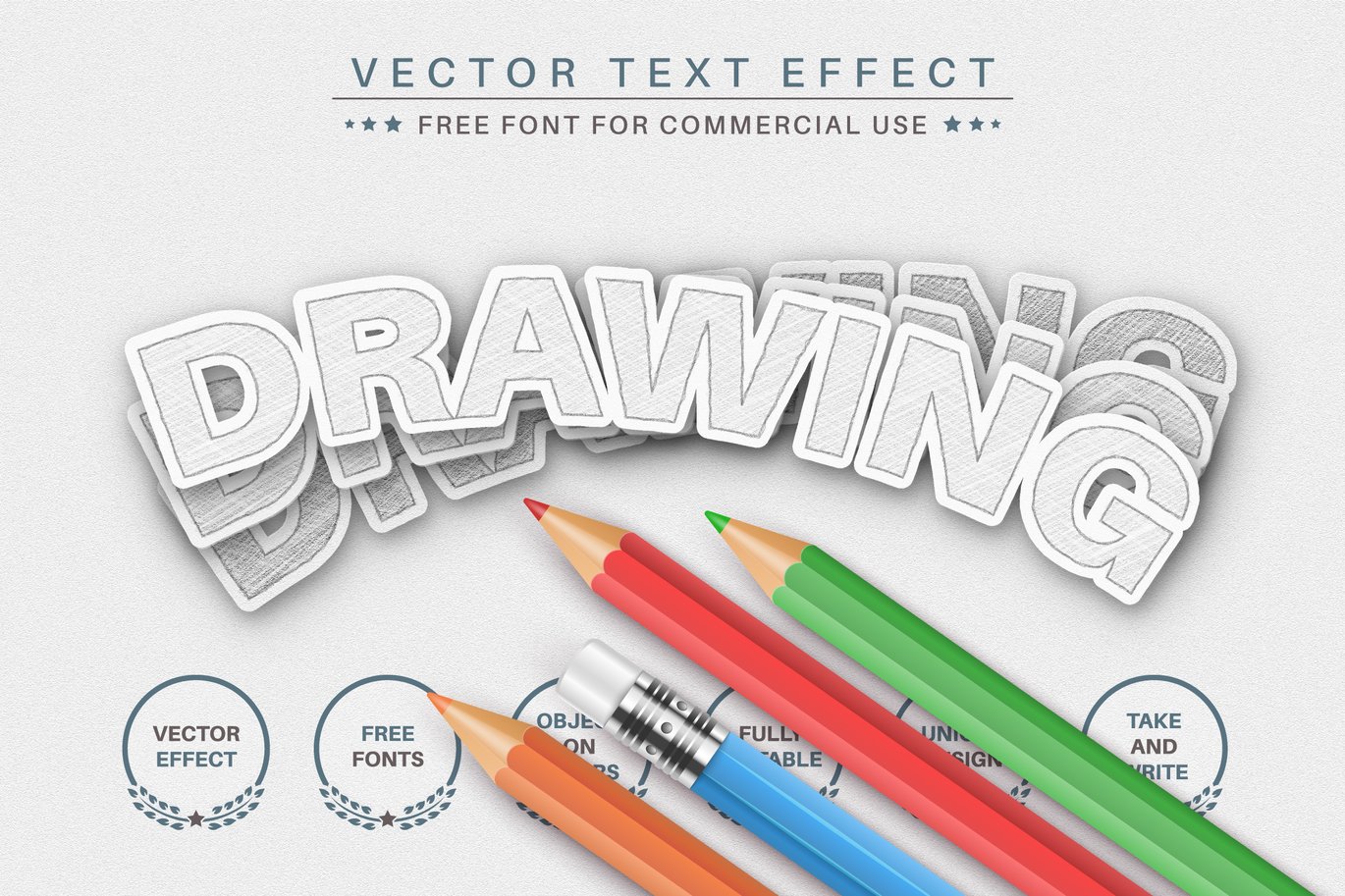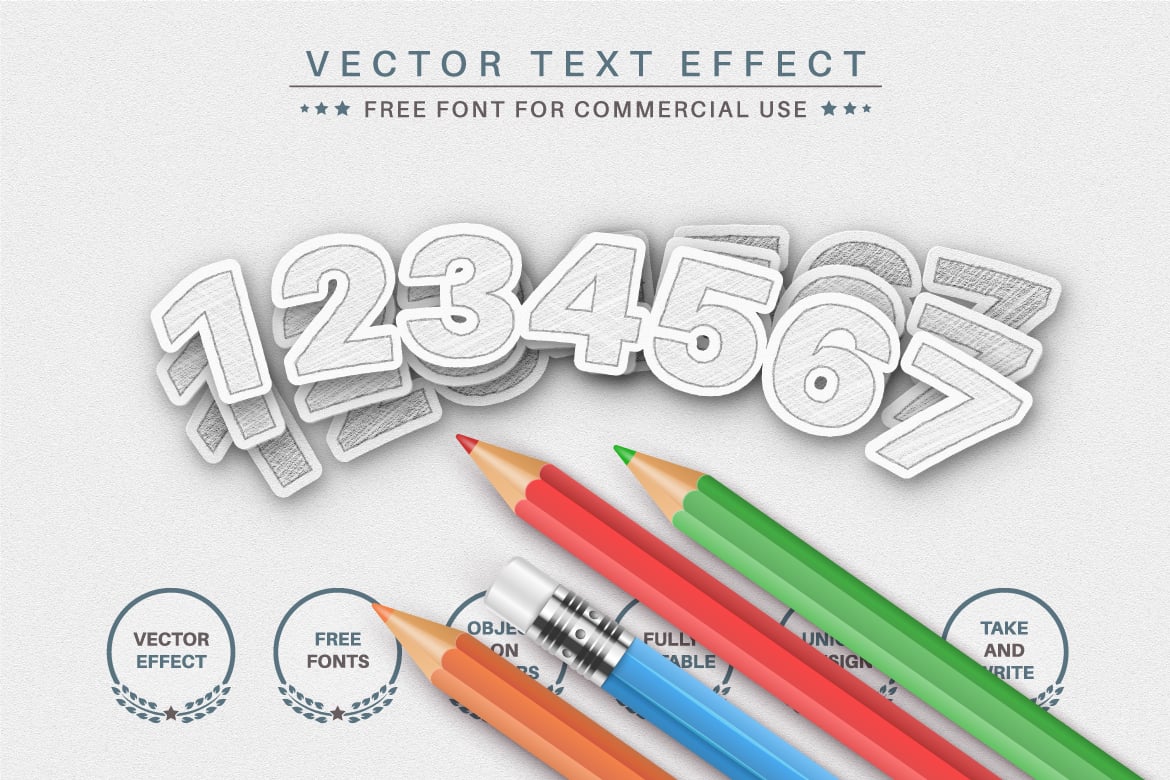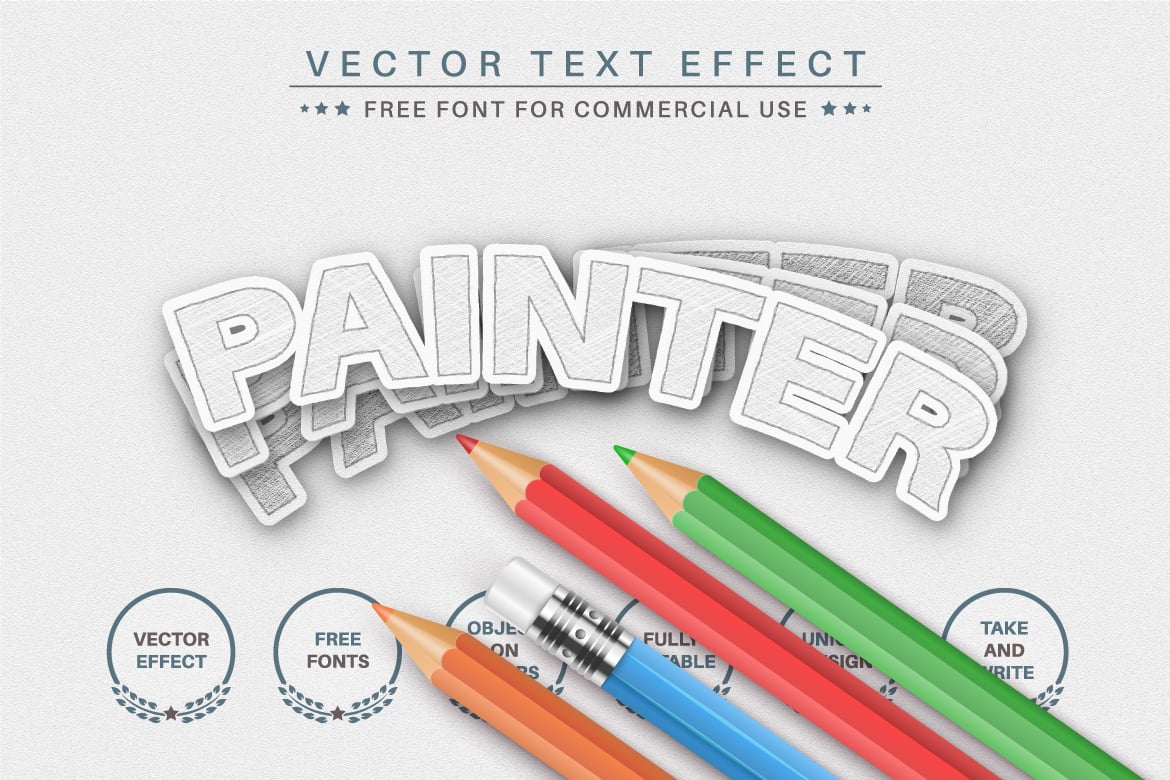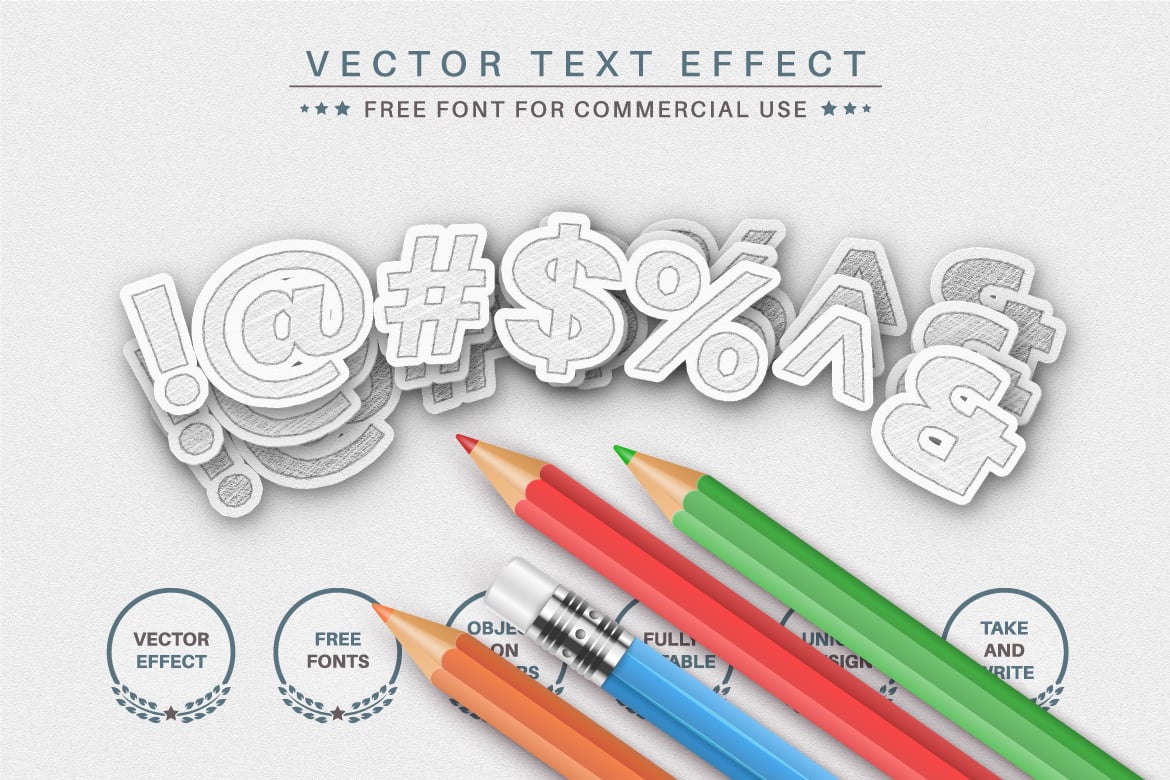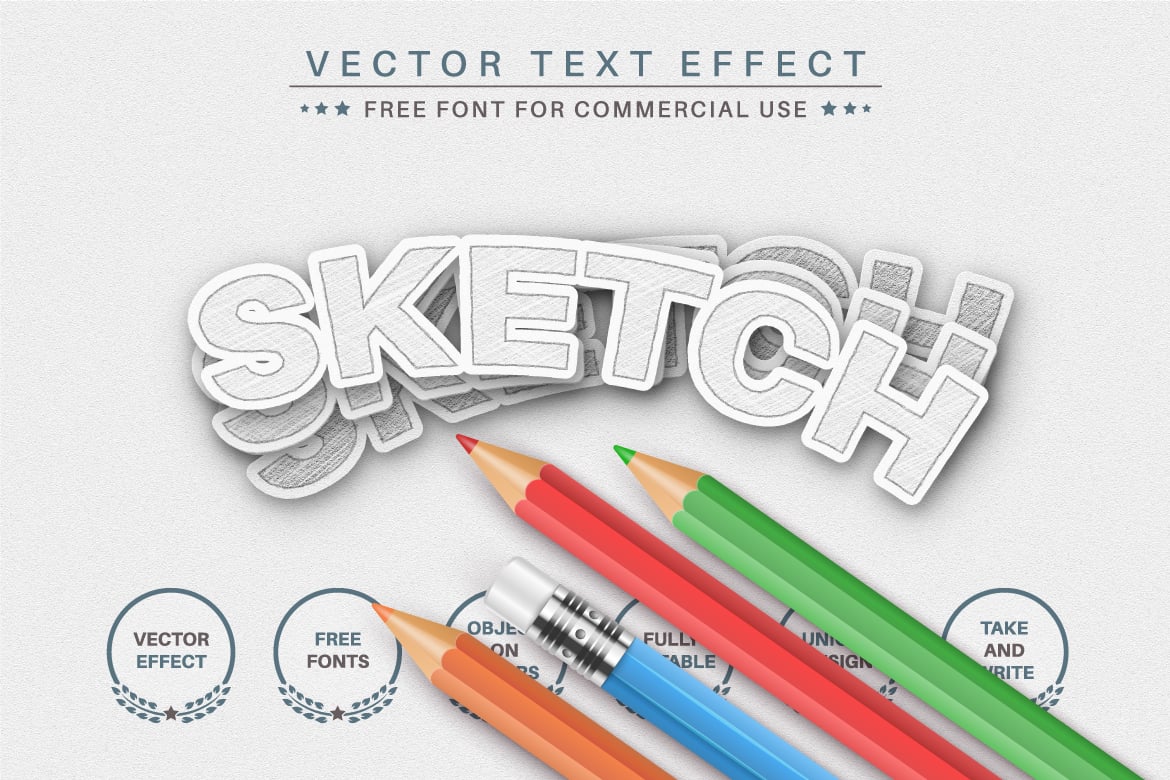
Pencil Drawing – Editable Text Effect, Font Style
Hello! I’m happy to introduce my new text effect “Pencil Drawing”. Just write your word and the effect will apply! Be as creative as you like to be in expressing yourself using this unique “Pencil Drawing”. Effect is perfect for any project that needs a unique handy touch whatever else your imagination leads you to!